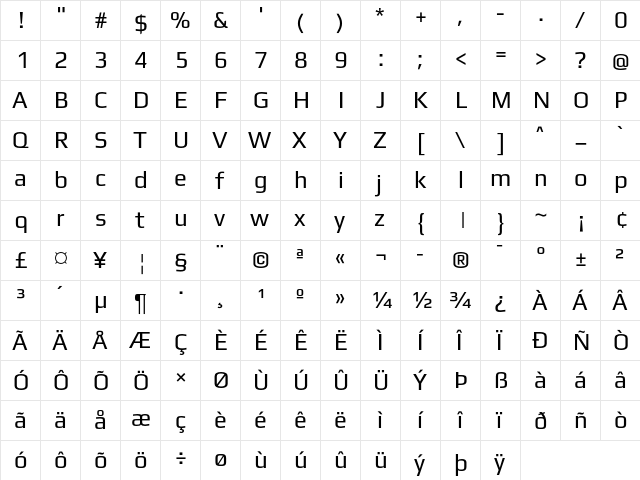
Gamestation Text Bold
| Foundry | Jonas Hecksher, Playtype-types AS |
| Designer | Jonas Hecksher |
Design Context for Gamestation Text Typeface
Gamestation Text takes a measured approach to typography — its balanced proportions and neutral character make it a reliable workhorse for both digital and print work. The heavy weight commands attention and anchors typographic hierarchies.